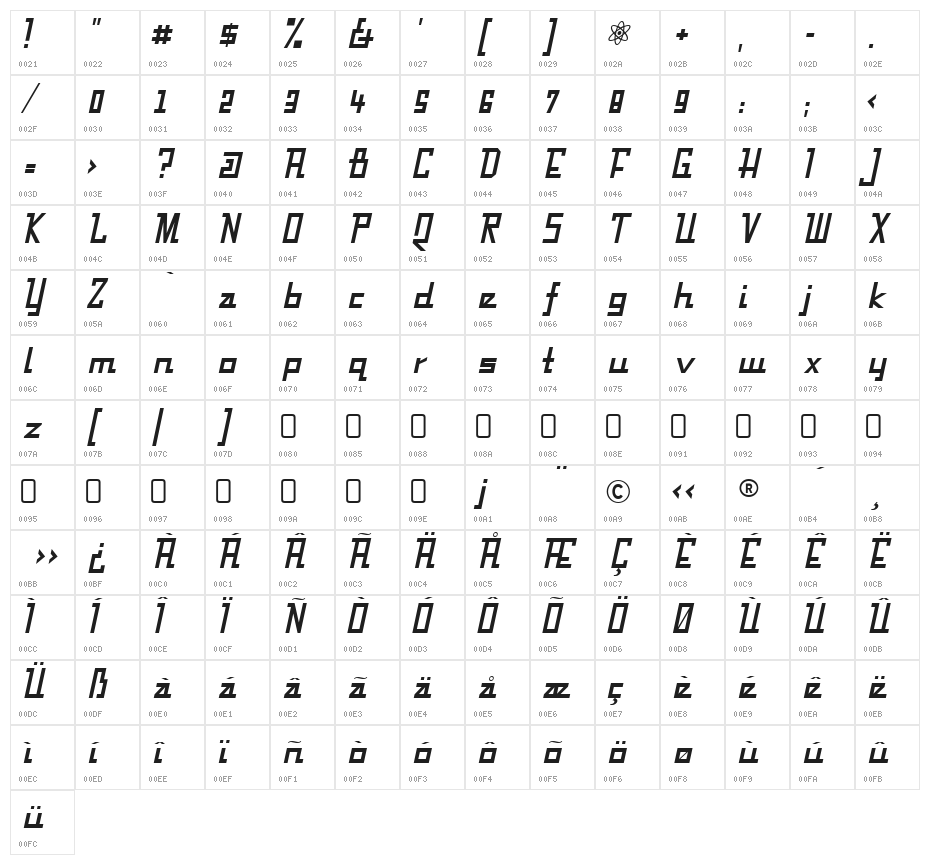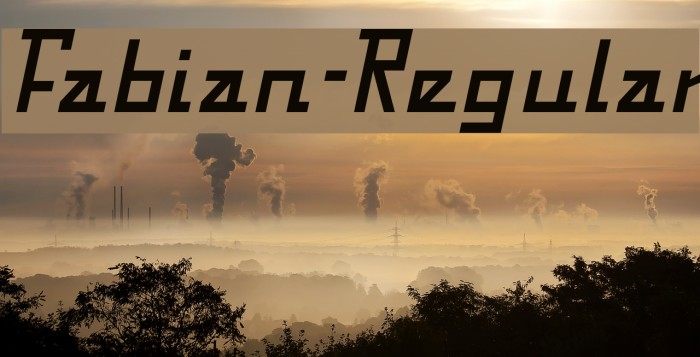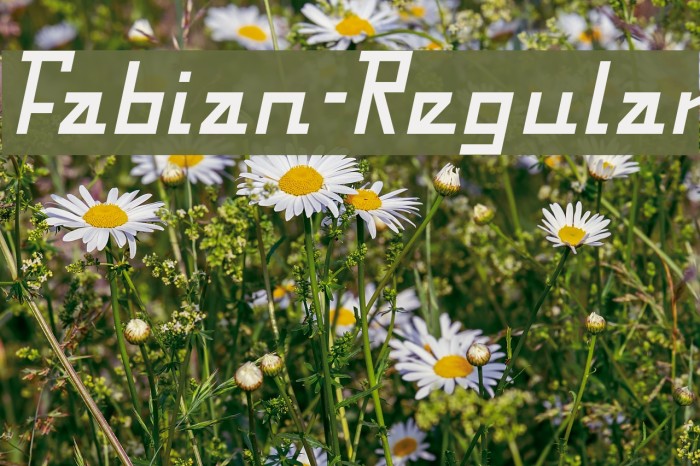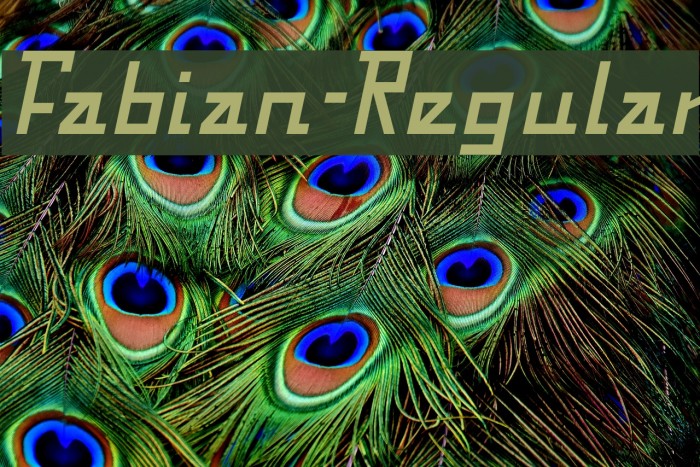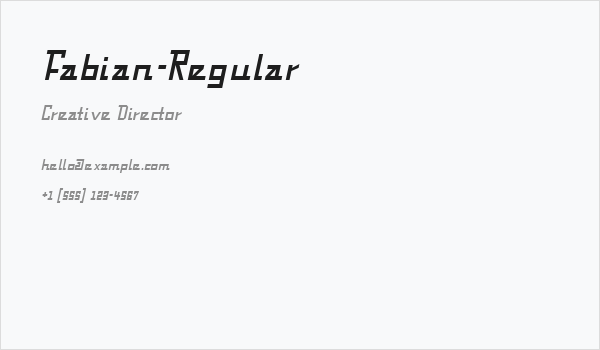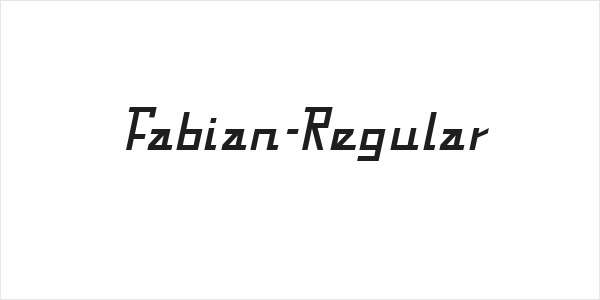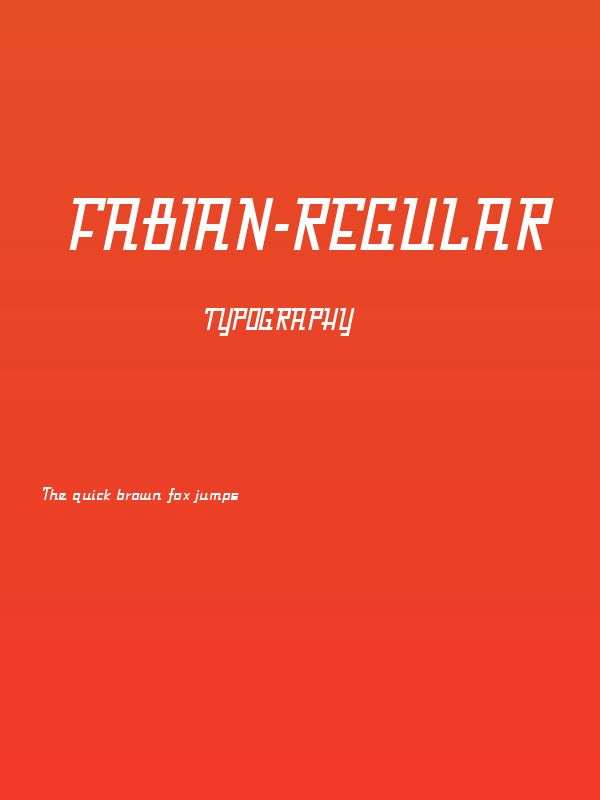
Fabian-Regular Font
Fabian-Regular Description
This font exhibits a bold, angular style with a modern and dynamic appearance. The characters are slightly slanted, giving a sense of motion and energy. The uppercase letters are particularly striking, with sharp edges and a geometric feel. The lowercase letters maintain the same angularity, creating a cohesive look throughout. Numbers and special characters follow the same design principles, ensuring consistency. The overall impression is one of strength and modernity, making it suitable for impactful designs.
| Proposed Projects | Ideal for sports branding, technology logos, and dynamic posters. |